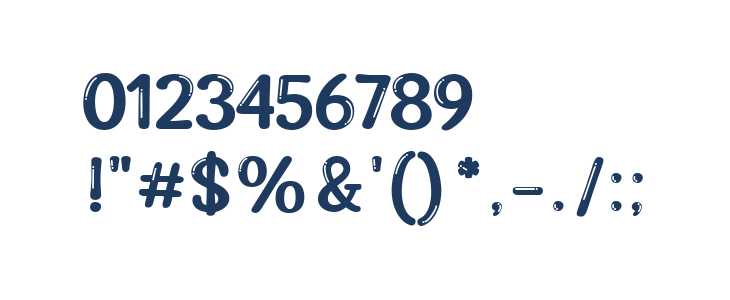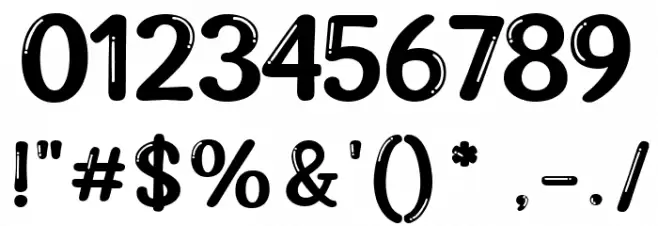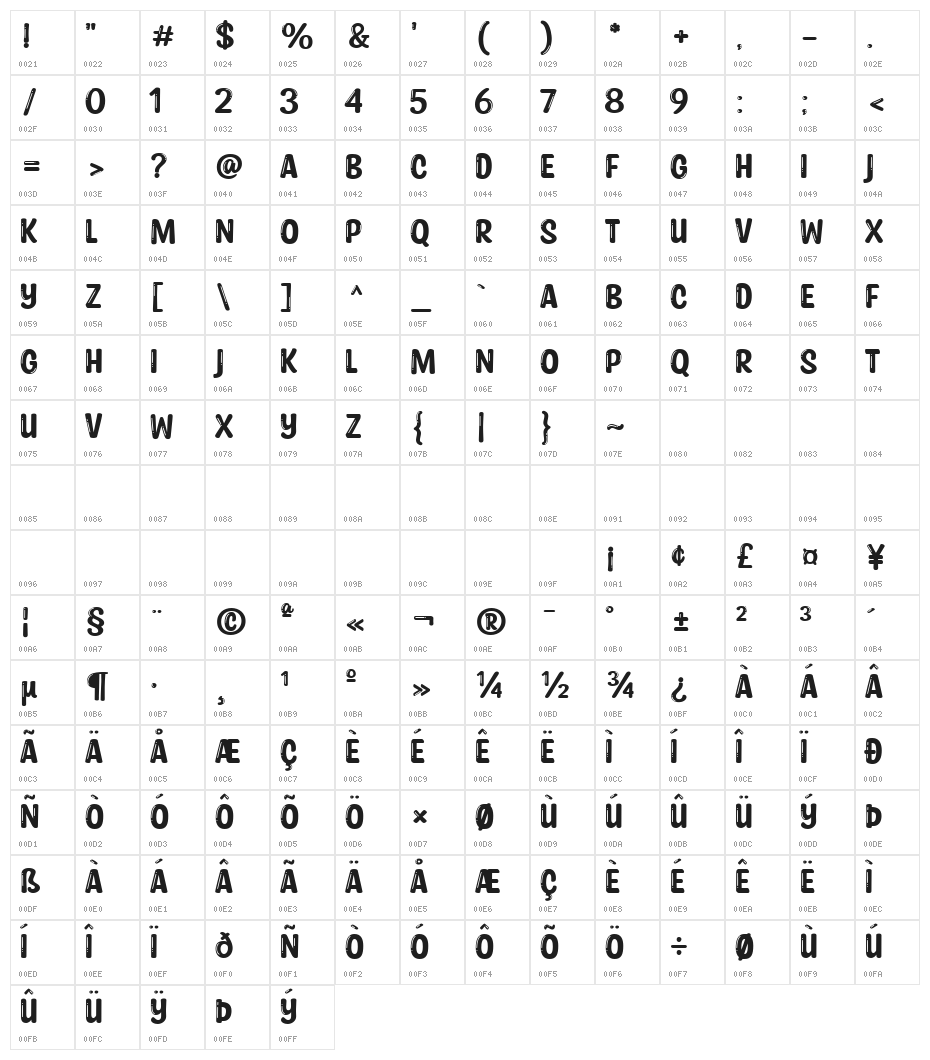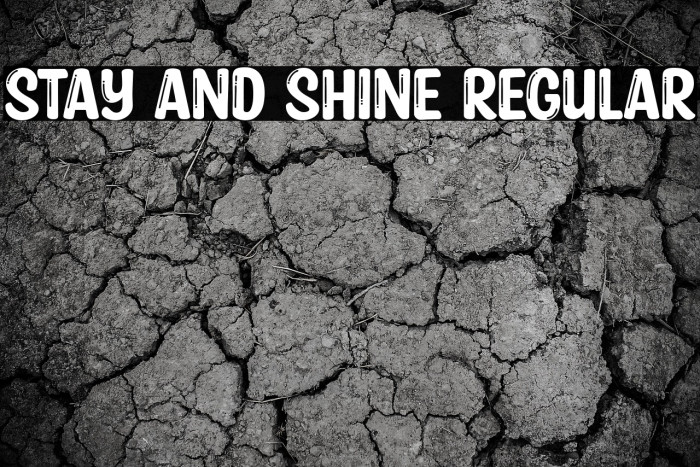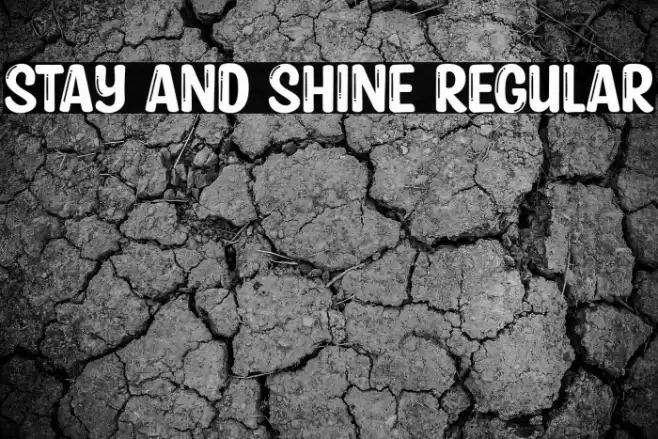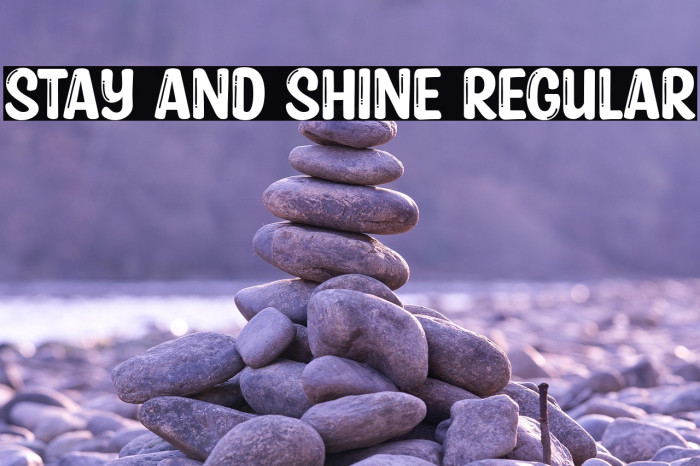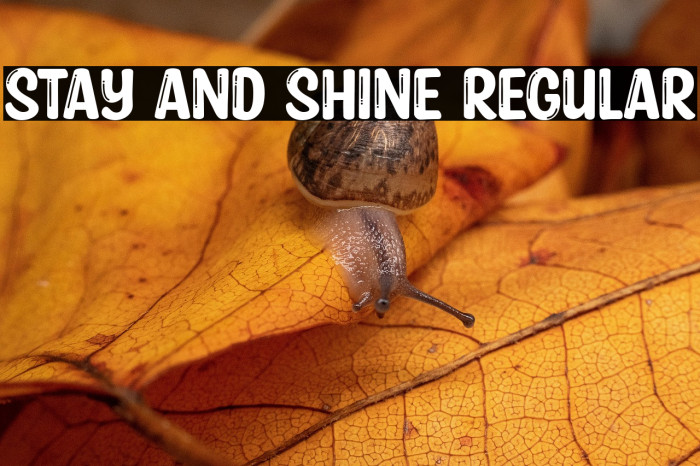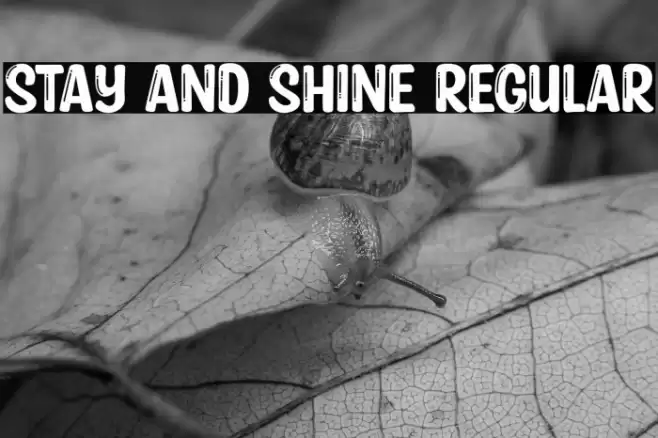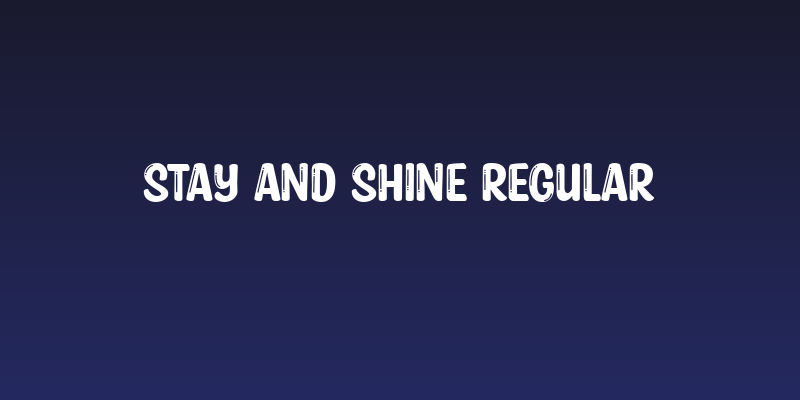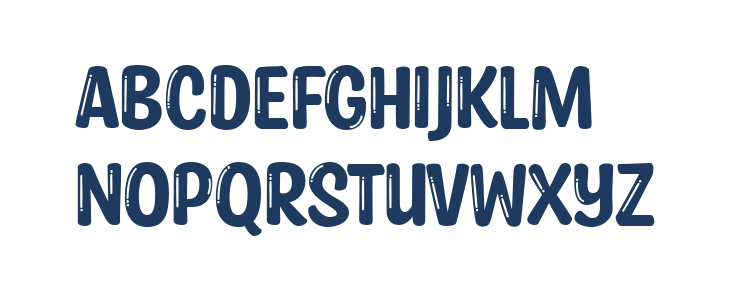
Stay and Shine Regular Font
Stay and Shine Regular Description
This font features a bold, playful style with a distinctive hand-drawn appearance. The letters are thick and rounded, with a slightly distressed texture that adds a vintage or retro feel. The uppercase and lowercase characters maintain a consistent weight, providing a cohesive look across the alphabet. The numbers and special characters follow the same design principles, ensuring uniformity. The font's boldness makes it highly legible, even at smaller sizes, while the unique texture gives it character and charm.